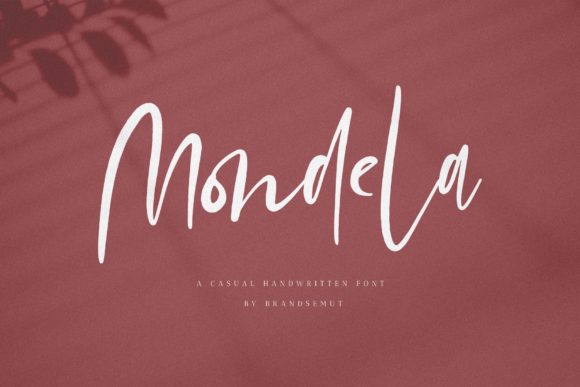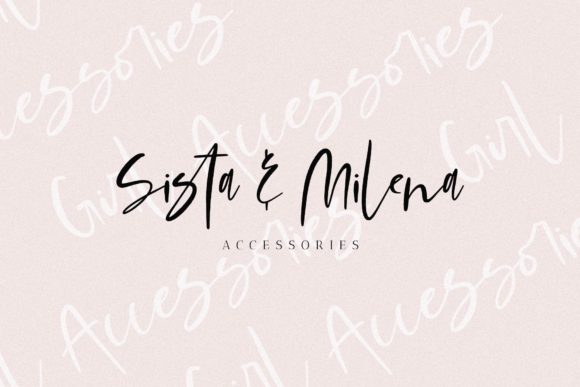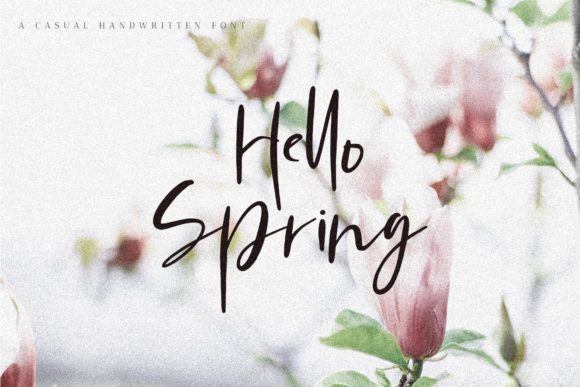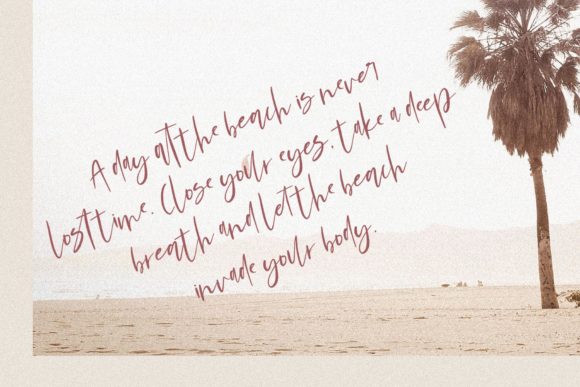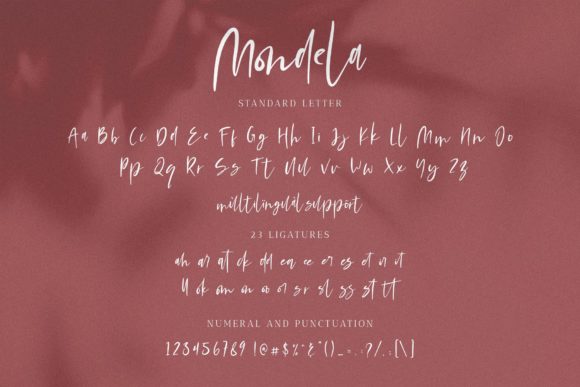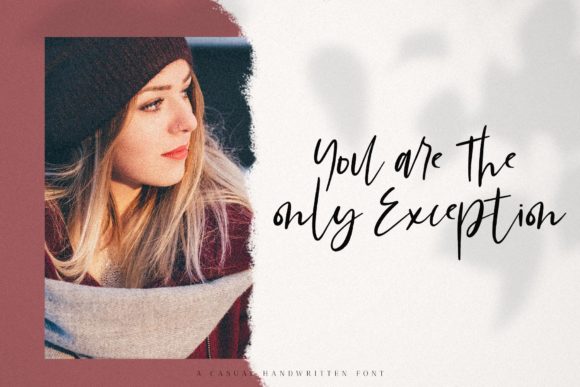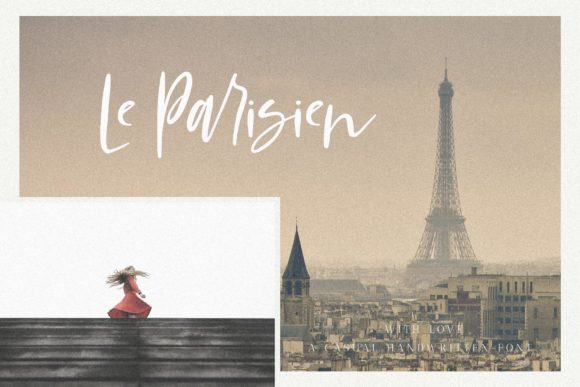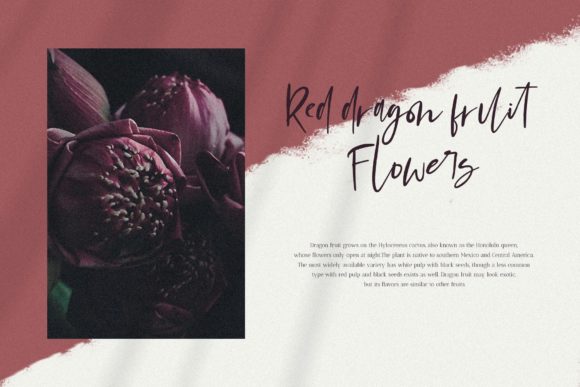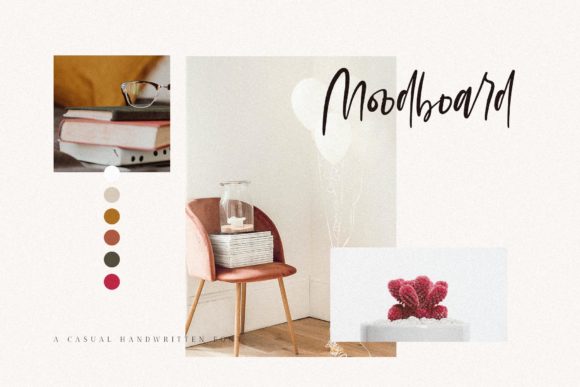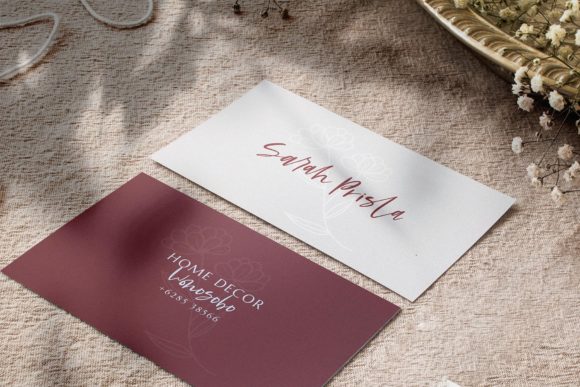
HomeScript FontsMondela Font Script Fonts Mondela Font FacebookXPinterestWhatsApp Mondela Font Poster 2 Mondela Font Poster 3 Mondela Font Poster 4 Mondela Font Poster 5 Mondela Font Poster 6 Mondela Font Poster 7 Mondela Font Poster 8 Mondela Font Poster 9 Mondela Font Poster 10 Mondela Font Poster 11 Mondela Font Poster 12 Mondela Font Poster 13 About Mondela Font Mondela is a fun and playful script with a unique style. Fall in love with its modern feel! DOWNLOAD ON CREATIVE FABRICAThis font is sold and delivered by Creative Fabrica. Font Canyon may earn a commission if you buy through this link. People also explored Meows Nepil Font Coffee for Breakfast Font Sunday Christmas Font Night Carnival Font Southampton Font Angela Font Night Jump Font Harlesy Font Kidding Font 356 0 TagsMondela Font Previous articleSketchy FontNext articleMaghnoyha Duo Font LEAVE A REPLY Cancel reply Comment: Please enter your comment! Name:* Please enter your name here Email:* You have entered an incorrect email address! Please enter your email address here Website: Save my name, email, and website in this browser for the next time I comment. Personal Use Free Lion Teen Personal Use Free Read more about this font Recharge Bold Personal Use Free Read more about this font Hello Holiday Personal Use Free Read more about this font Shelly Personal Use Free Read more about this font BLOG Modern Sans-Serif Fonts That Brands Love in 2025 In 2025, modern sans-serif fonts remain a top choice for brands looking to project clarity, professionalism, and... How to Install and Use Fonts on Windows, macOS, and Web Projects 5 Fonts That Will Dominate Design Trends in 2026 Fonts That Capture the Spirit of New York City